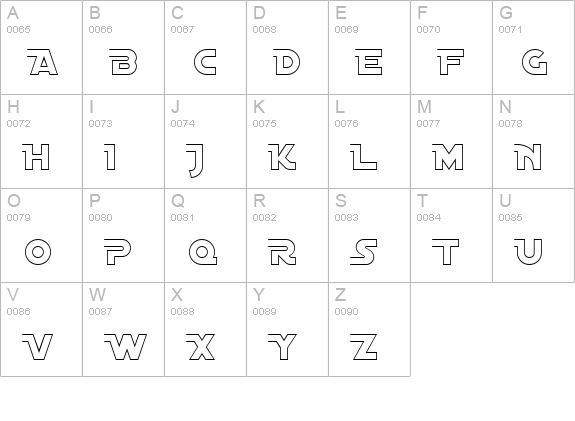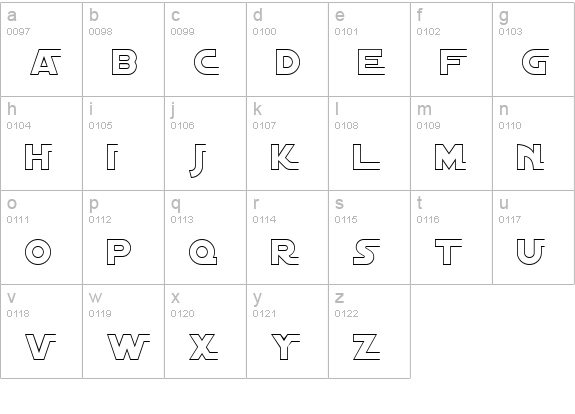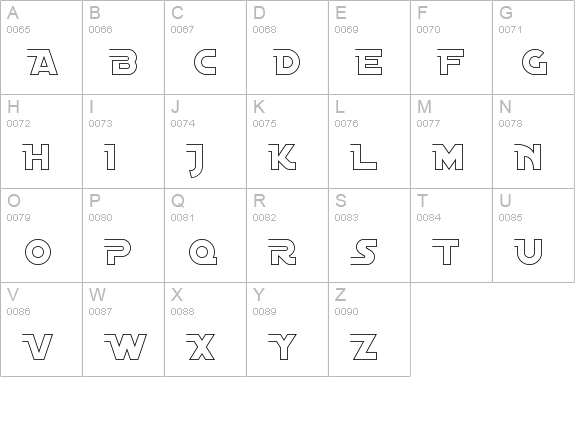
Distant Galaxy AltOutline font transports you to a world of futuristic elegance and cosmic charm. This captivating typeface features a unique blend of sleek lines and intricate details, making it perfect for adding a touch of otherworldly sophistication to your designs. The AltOutline style adds a dynamic dimension to the font, creating a mesmerizing visual impact that is sure to captivate your audience. Best of all, Distant Galaxy AltOutline font is available for free download at FontsMarket.com. Embrace the endless possibilities this font offers and elevate your projects to new galaxies of creativity. Let your imagination soar with Distant Galaxy AltOutline font - the perfect choice for those seeking a touch of cosmic magic in their designs.